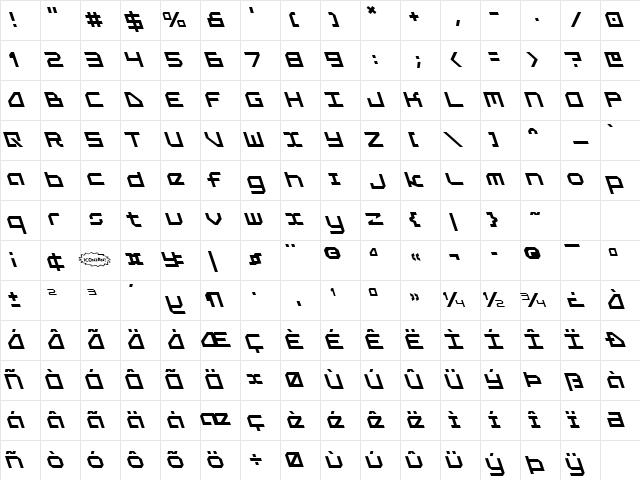
5th Agent Leftalic Italic
Design Context for 5th Agent Leftalic
5th Agent Leftalic is a composed and adaptable typeface that performs quietly and consistently across a wide range of design contexts. The slanted form adds forward momentum and visual energy.
Pro Tip: Use 5th Agent Leftalic for emphasis, pull quotes, and subheadings where its slanted energy can add rhythm to the layout.